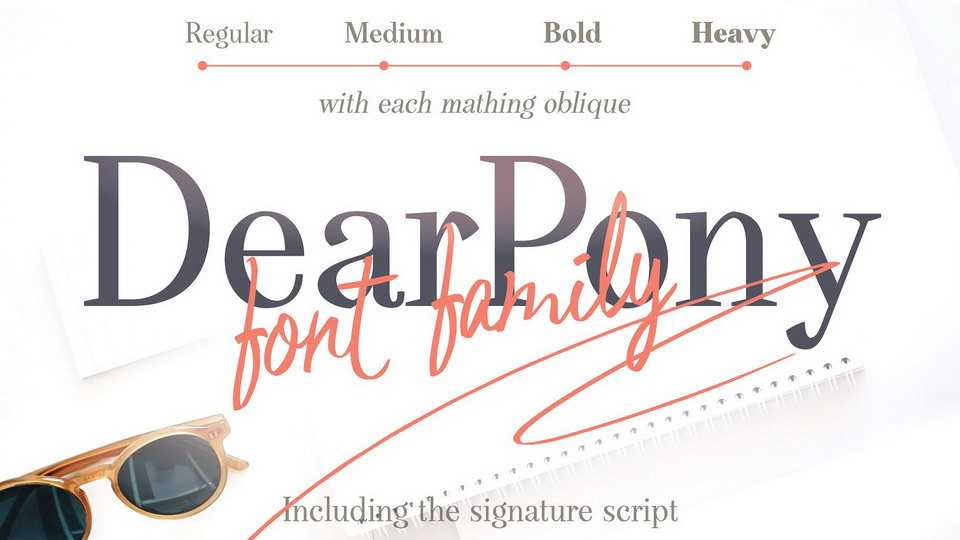
Download DearPony font, a sweet, warm, quirky, yet classy serif typeface. This charming combination offer a unique and elegant look that make it useful for various creative project.